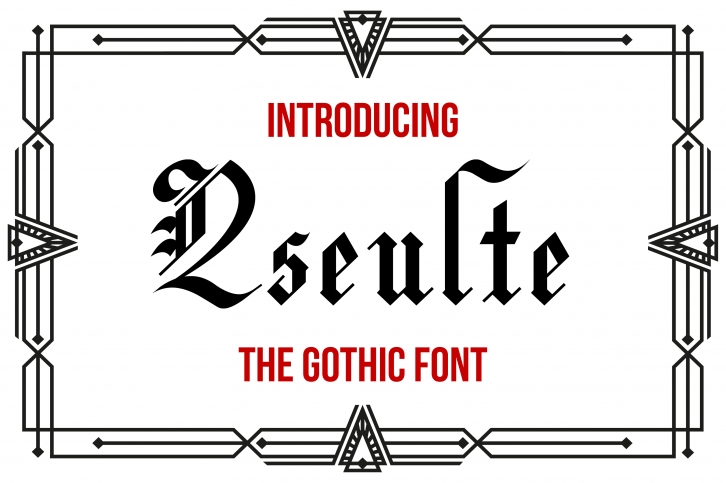
Yseulte is a hand-drawn, gothic-influenced blackletter font ideal for various custom designs such as invitations, cards, or labels. It will look outstanding in a wide range of settings.